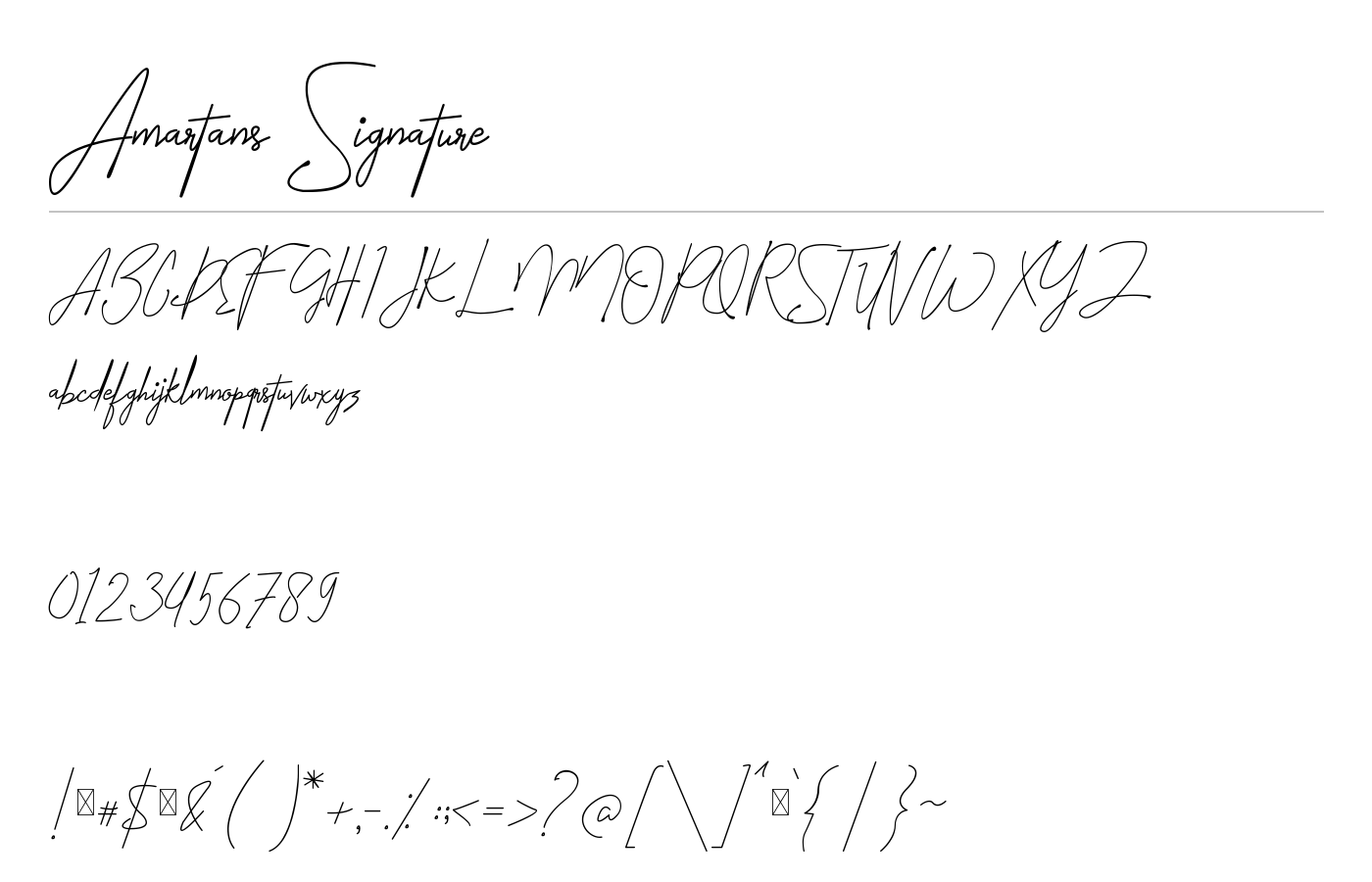
Amartans Signature is a delicate, elegant script font with a handwritten, signature-style look. Its thin, flowing lines and tall, slim letterforms convey a personal, sophisticated feel, making it ideal for branding, fashion, and luxury designs that require a modern yet intimate touch. This font works beautifully in logos, invitations, and editorial headlines, where a refined and stylish impression is desired.
Amartans Signature Font
About Amartans Signature Font